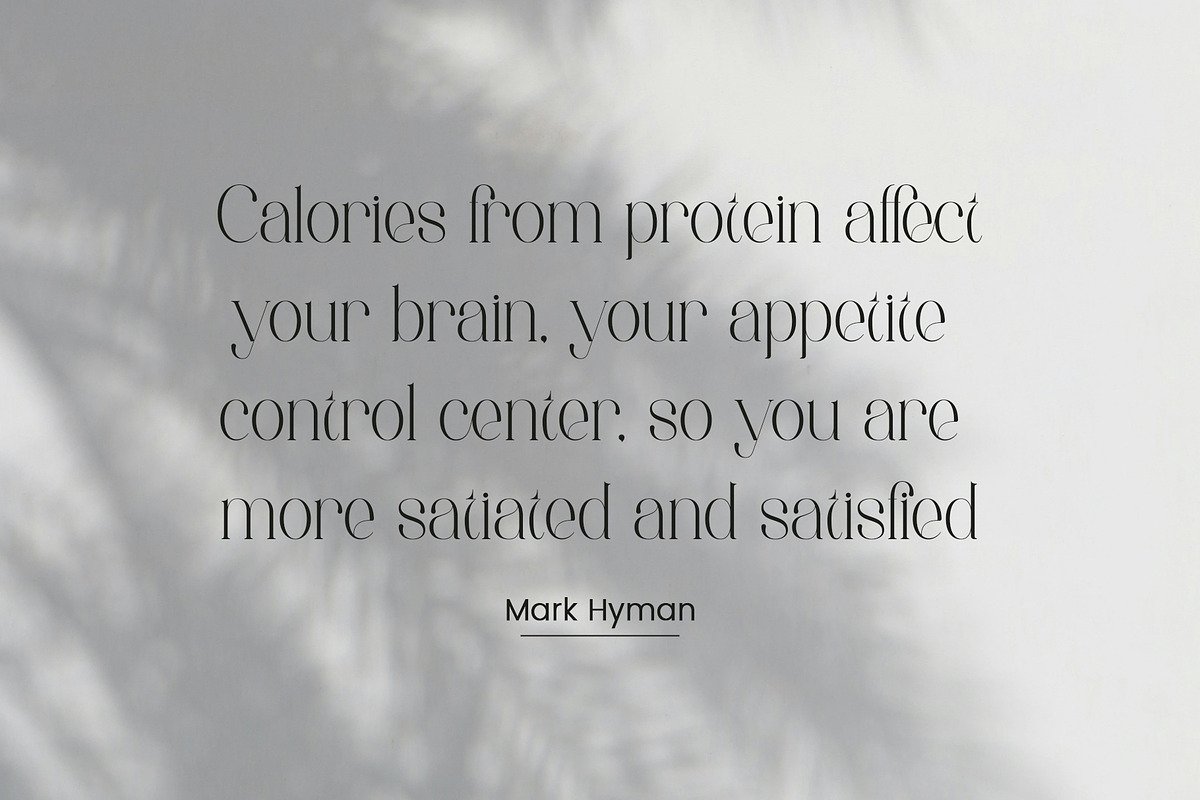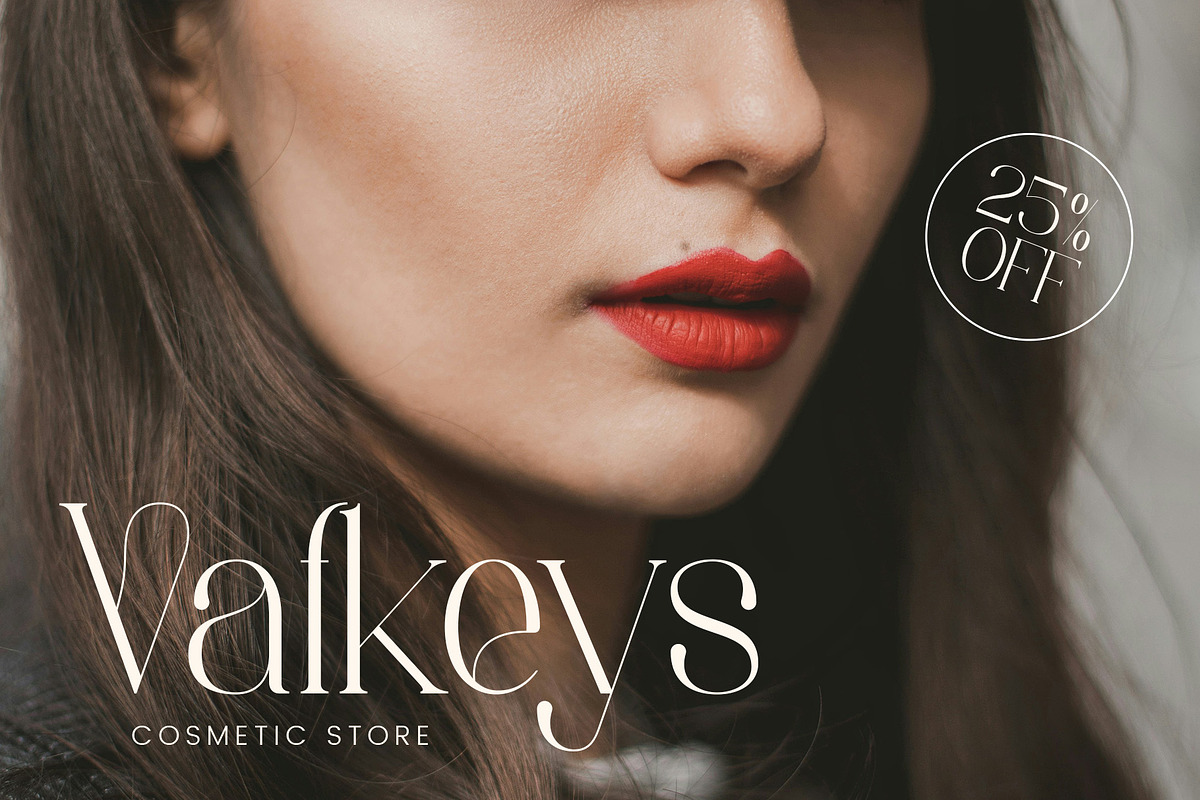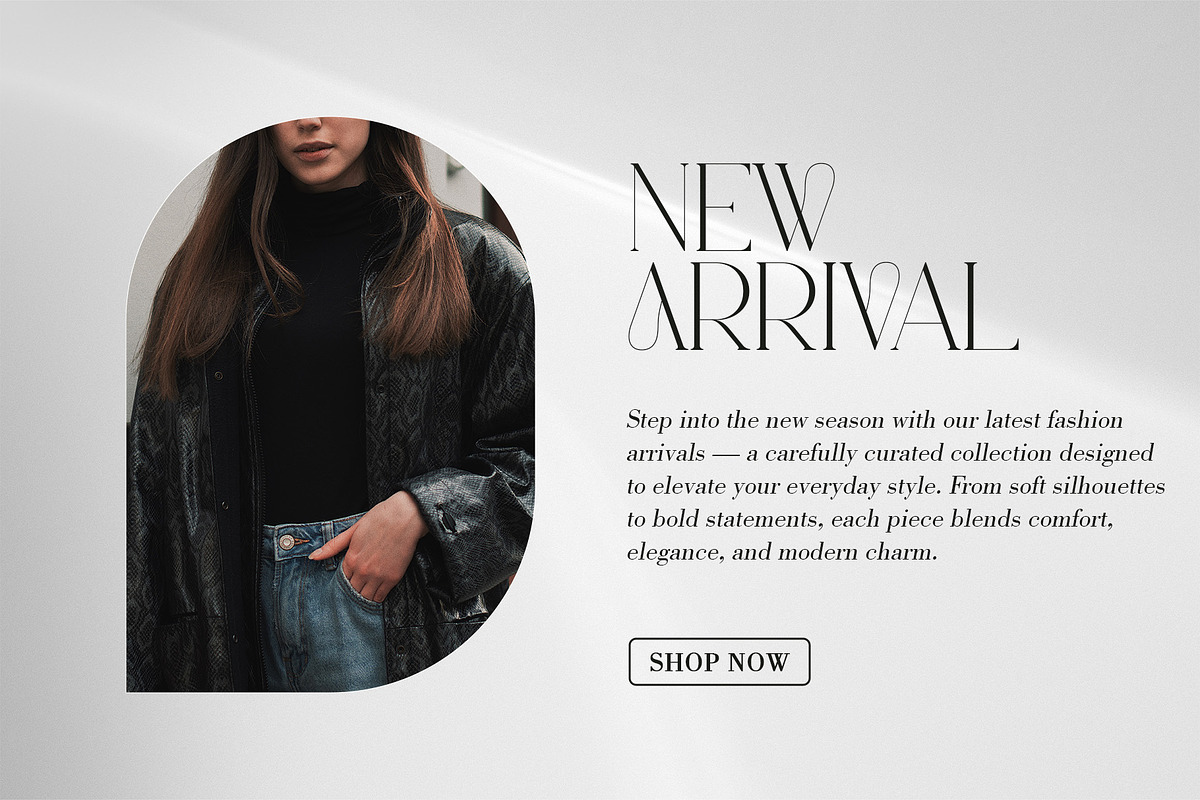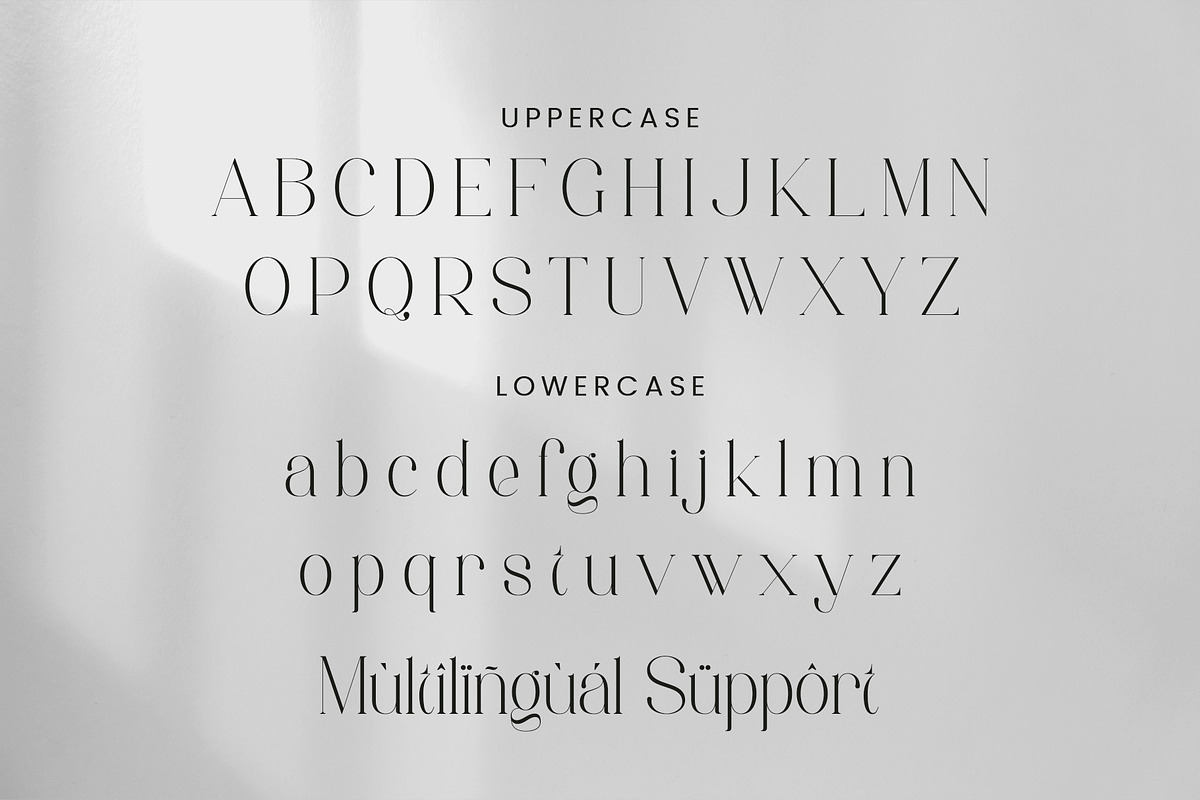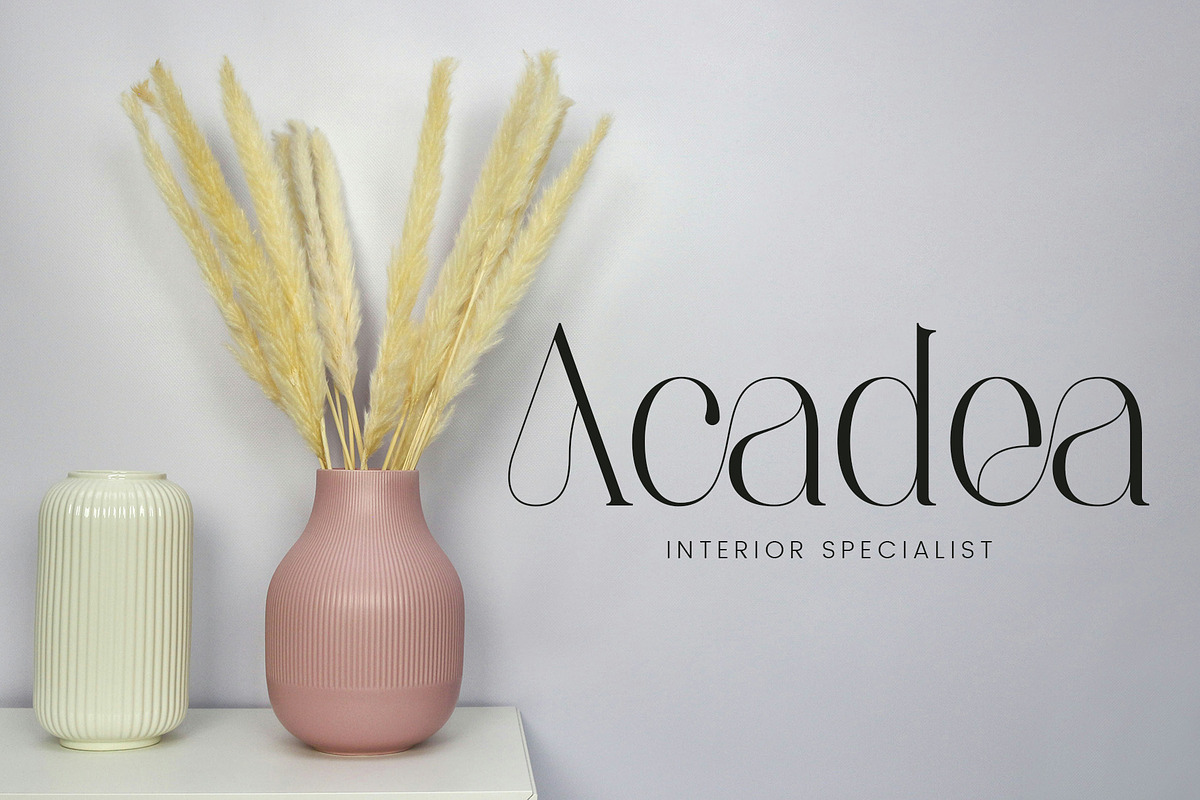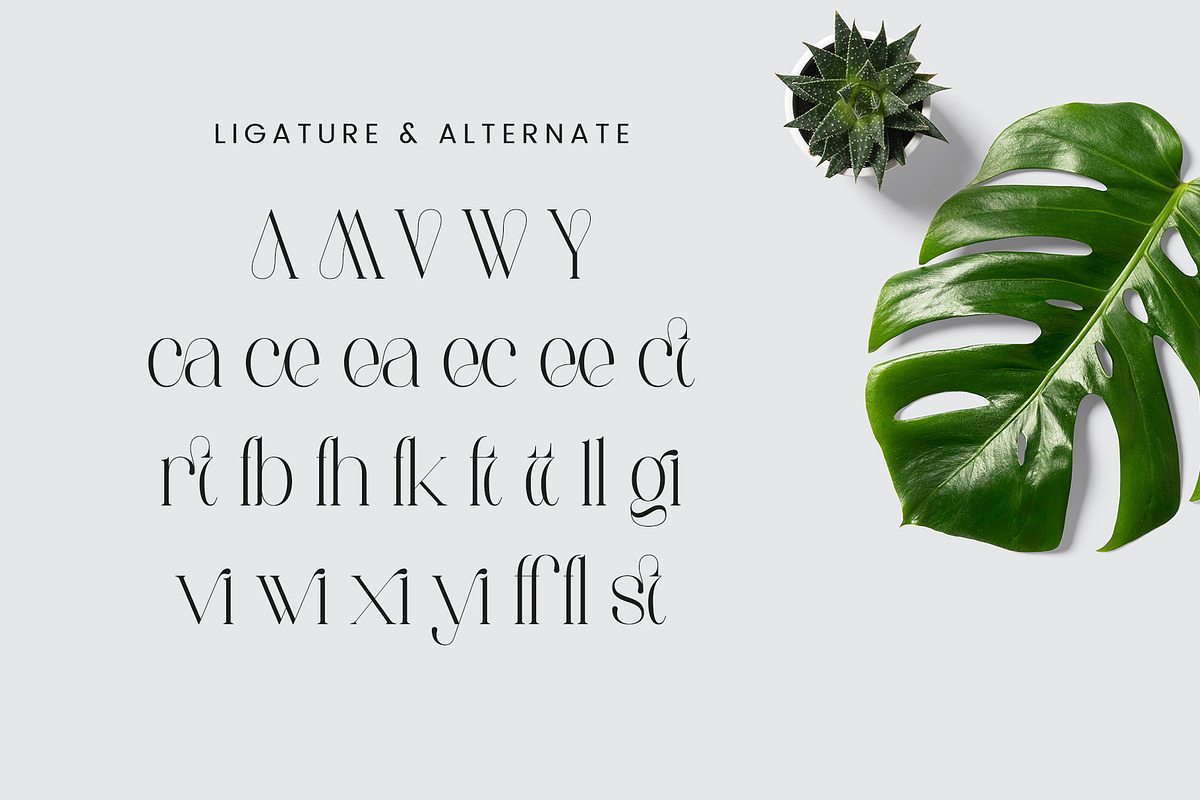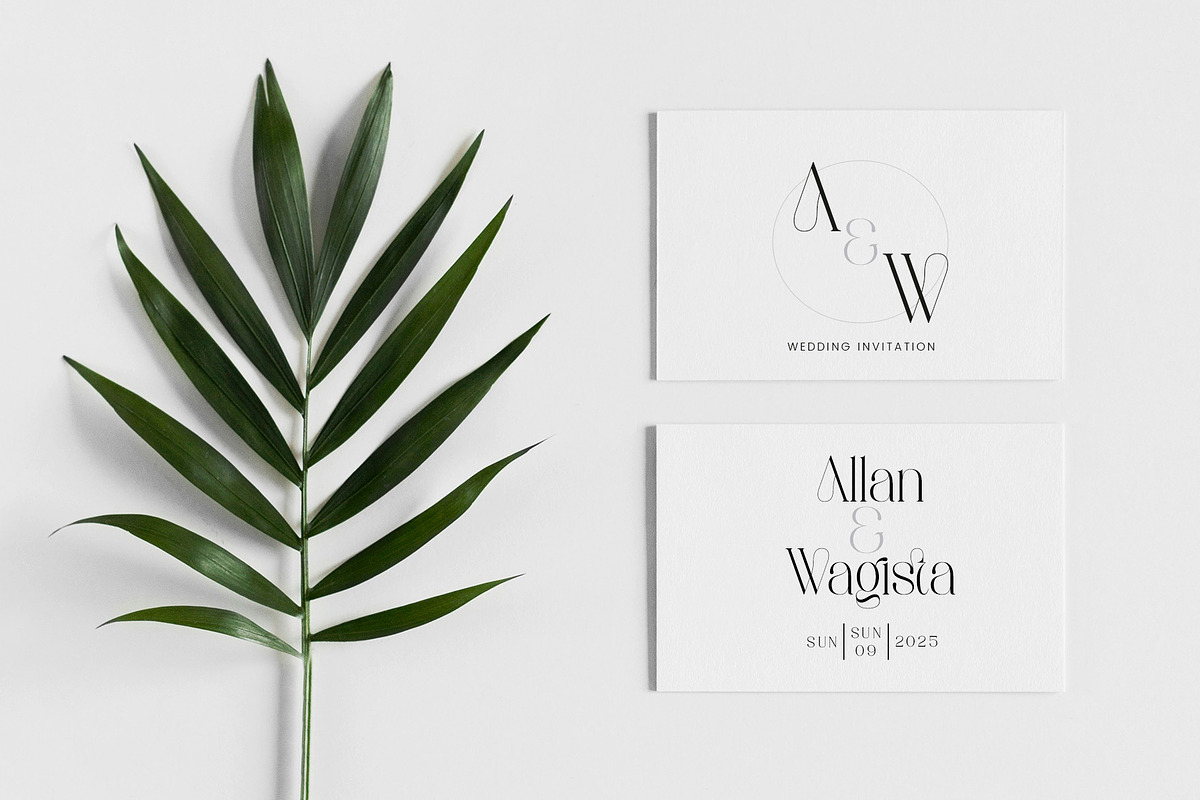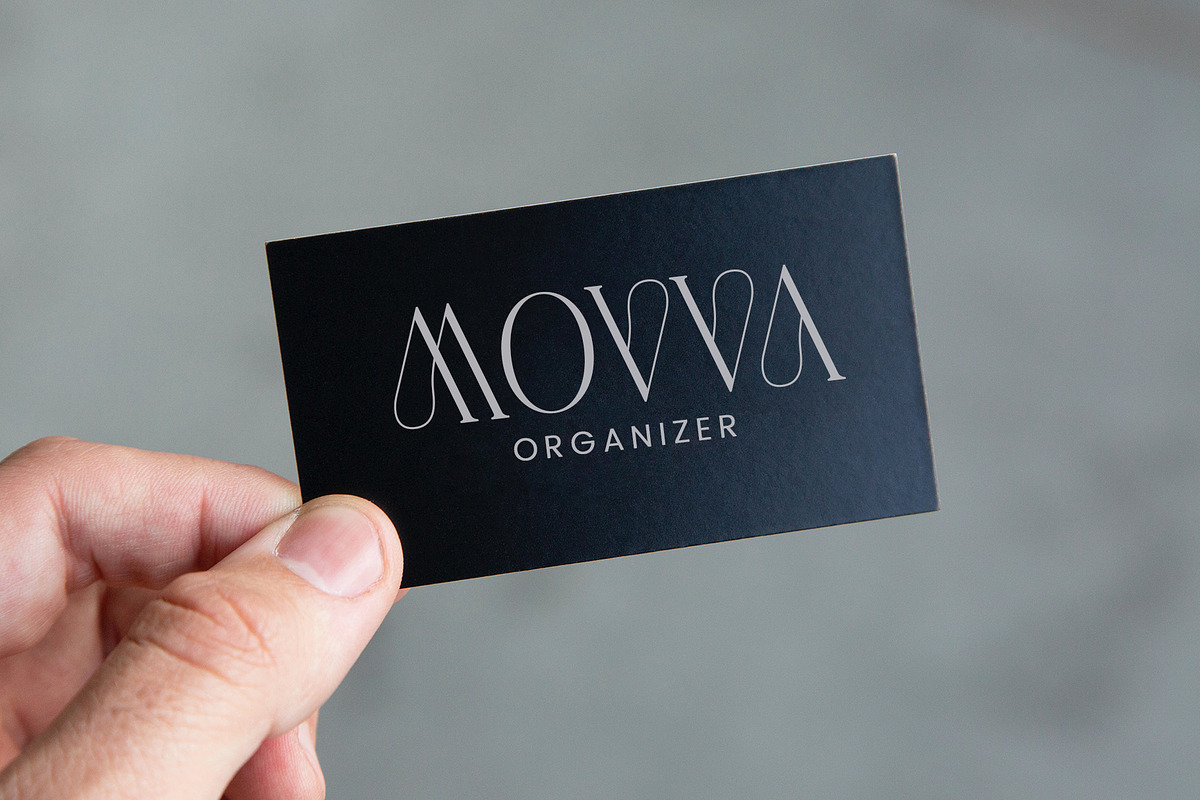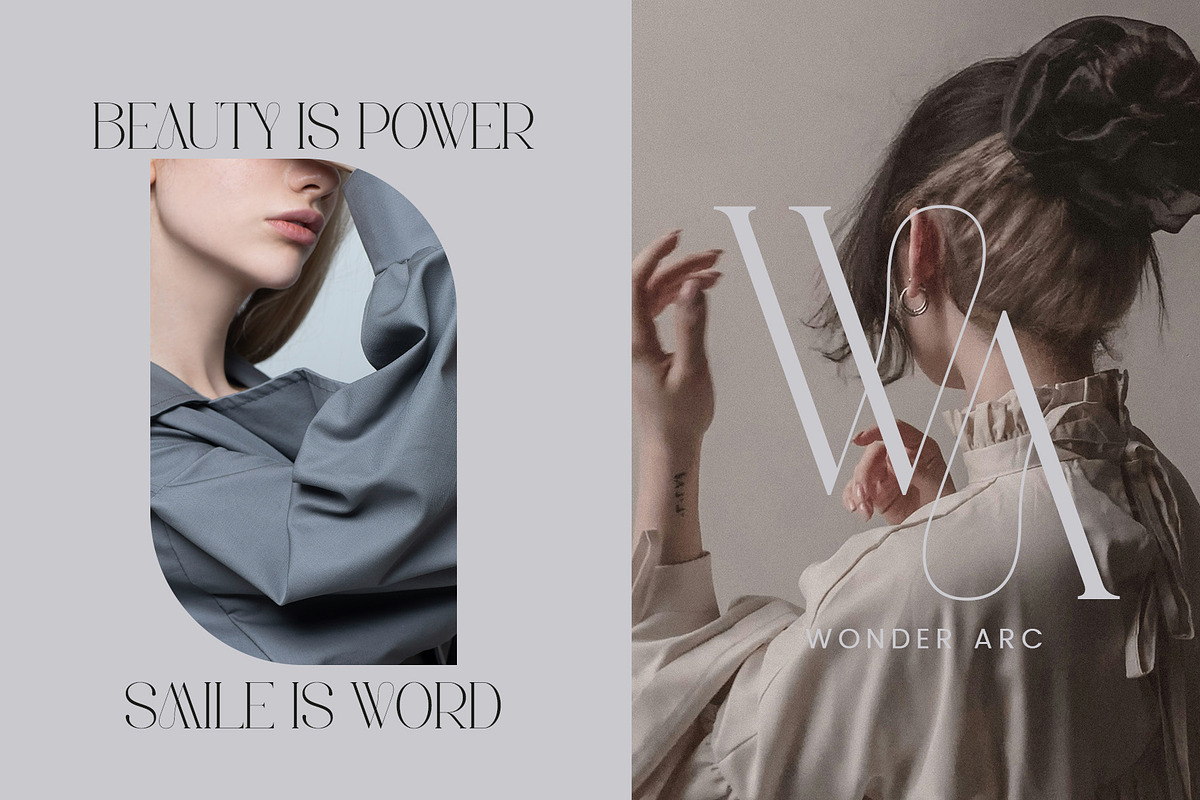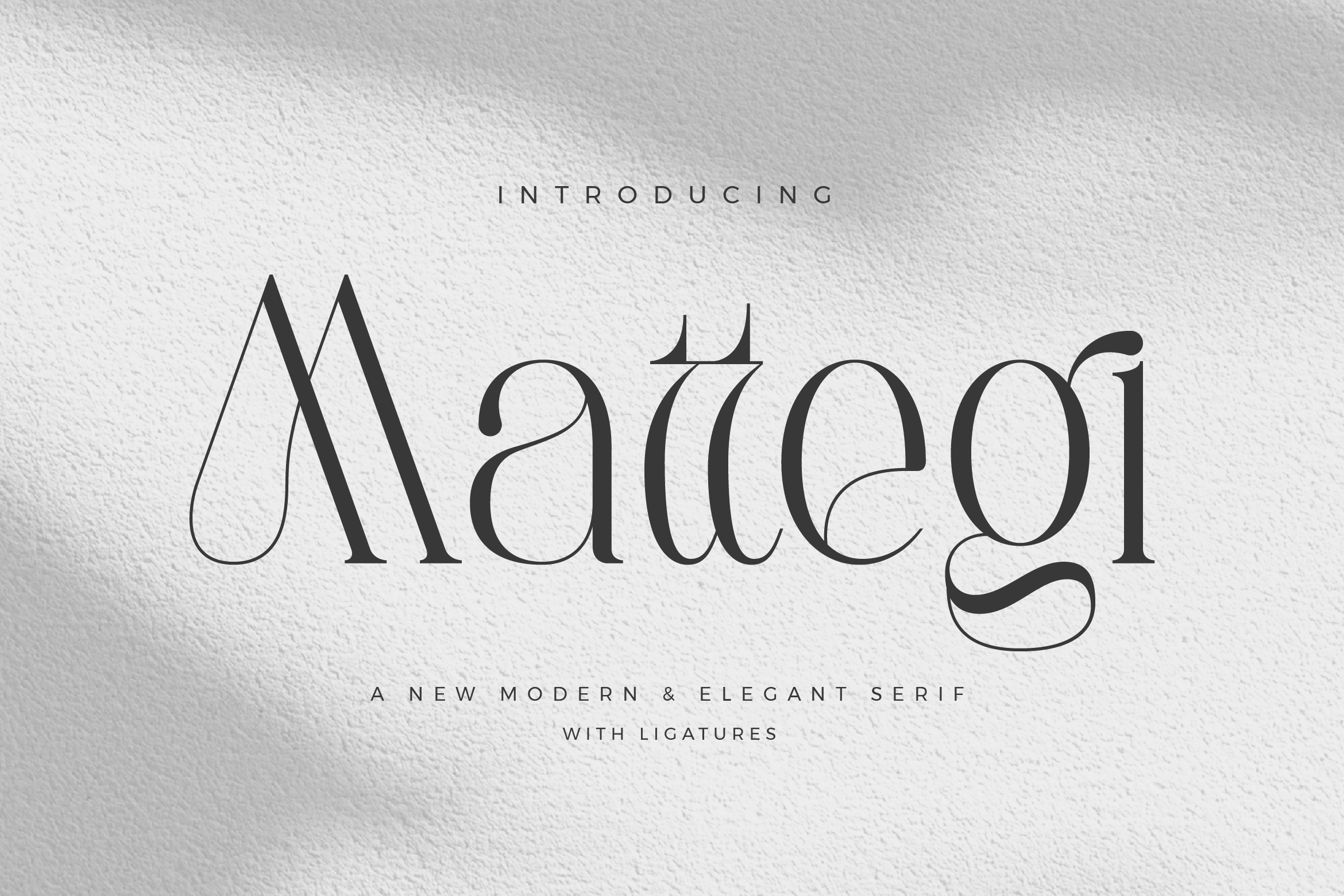
Mattegi - Modern Serif Font
Mattegi Stylish Ligature Typeface, inspired by the famous minimalist logo perfect for the purposes of designing templates, brochures, videos, advertising branding, logos and more.